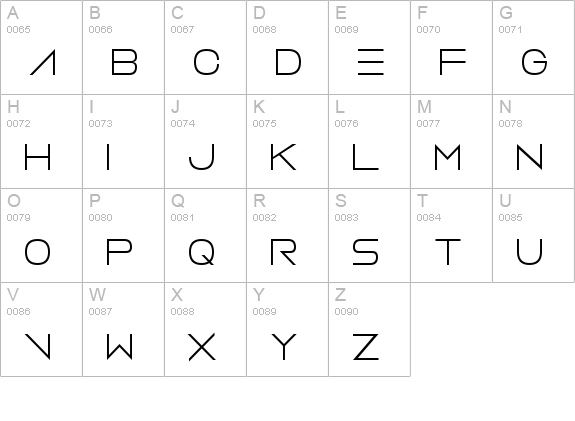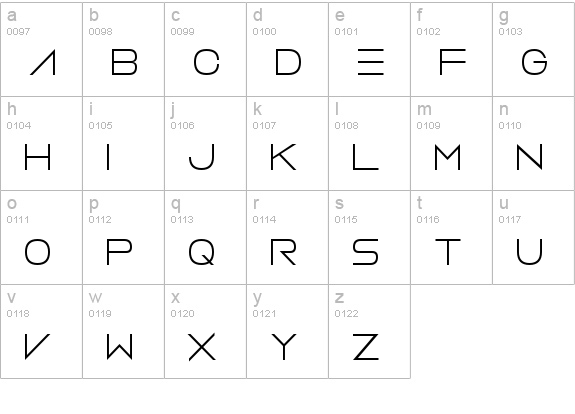
Vermin Vibes 2 White font is a modern and stylish typeface that exudes a sleek and futuristic vibe. With its clean lines and sharp edges, this font is perfect for adding a contemporary touch to your projects. Whether you're working on branding, graphic design, or web content, Vermin Vibes 2 White font will make your text stand out with its unique look. The best part? Vermin Vibes 2 White font is completely free to download at FontsMarket.com. That's right, you can elevate your designs without breaking the bank by accessing this high-quality font for no cost at all. Don't miss out on the opportunity to enhance your creative work with the striking Vermin Vibes 2 White font – download it today and see the difference it makes!